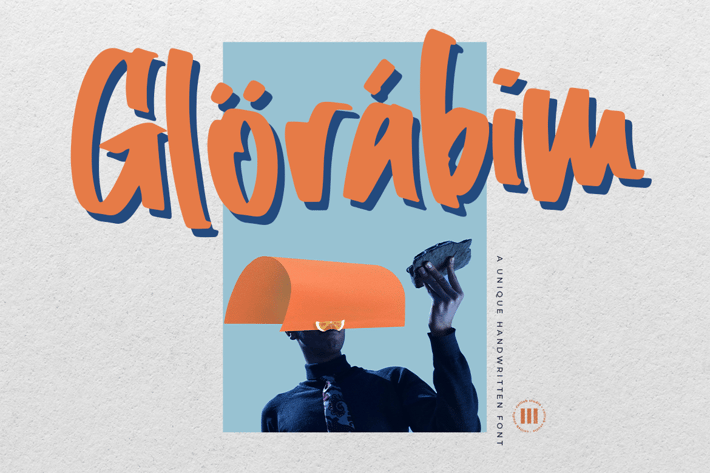
Glorabim - A Unique Display Font
Glorabim is a unique display font that is suitable for design projects; playful theme, logo, branding, poster, quotes, display, beautiful stationary art, eye-catching social media posts, and cute greeting cards, and any other designs.